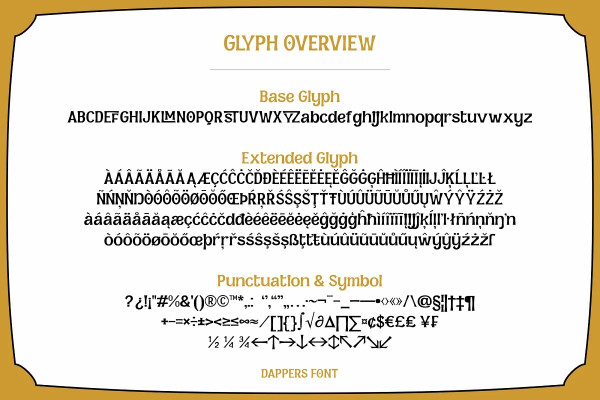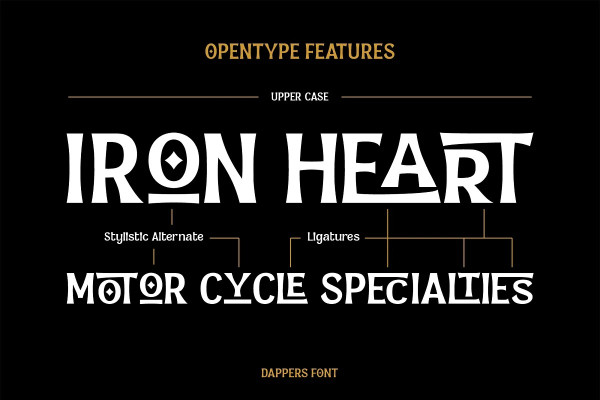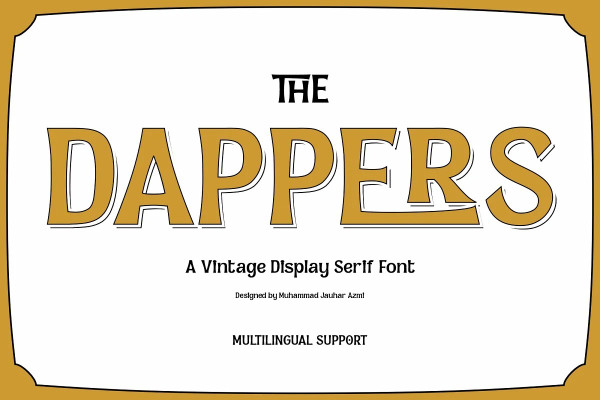
Dappers Font
Dappers Font is a vintage display serif font. featured with a lot of ligatures, dappers could be a nice choice for logo design and promotional design and any design project.